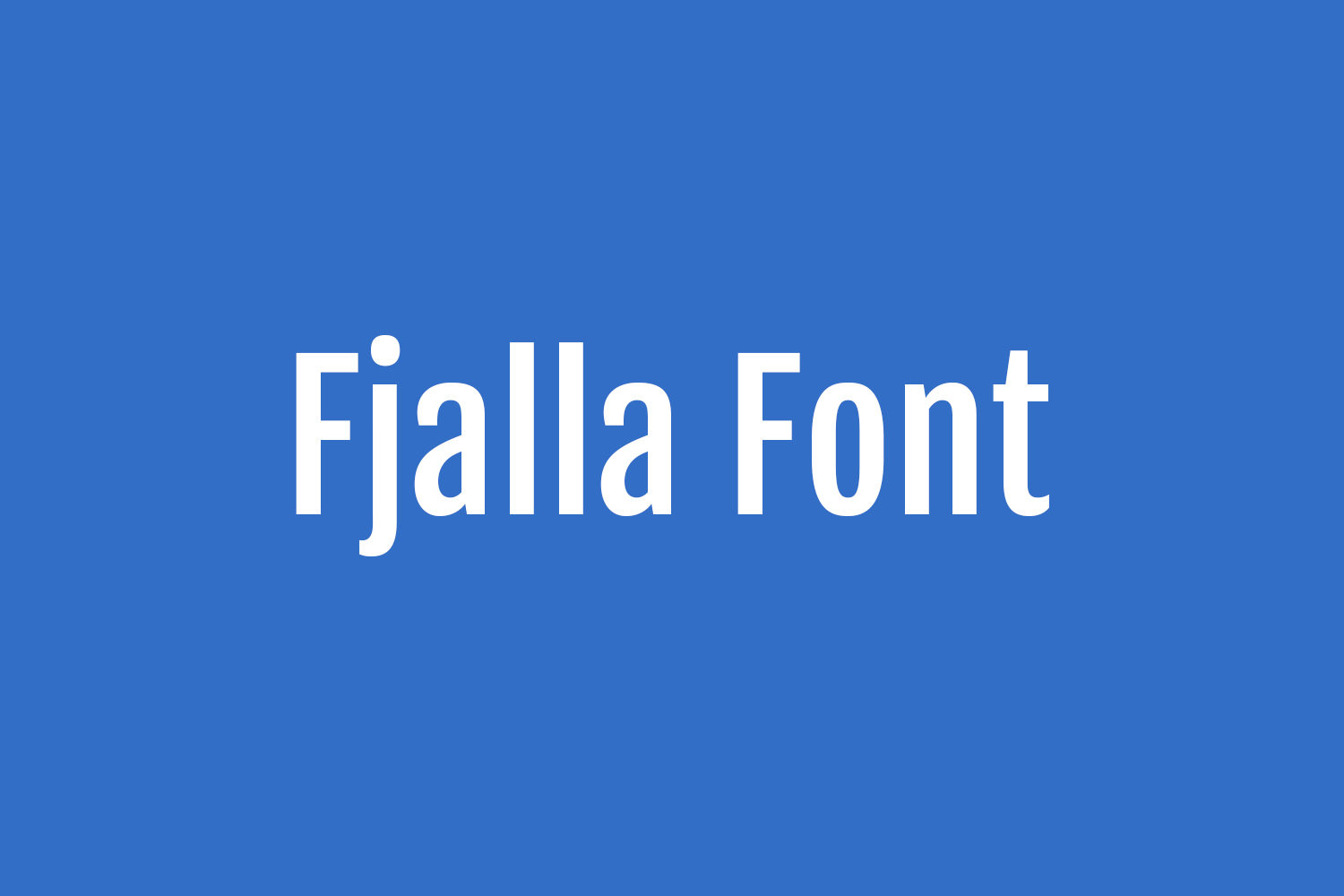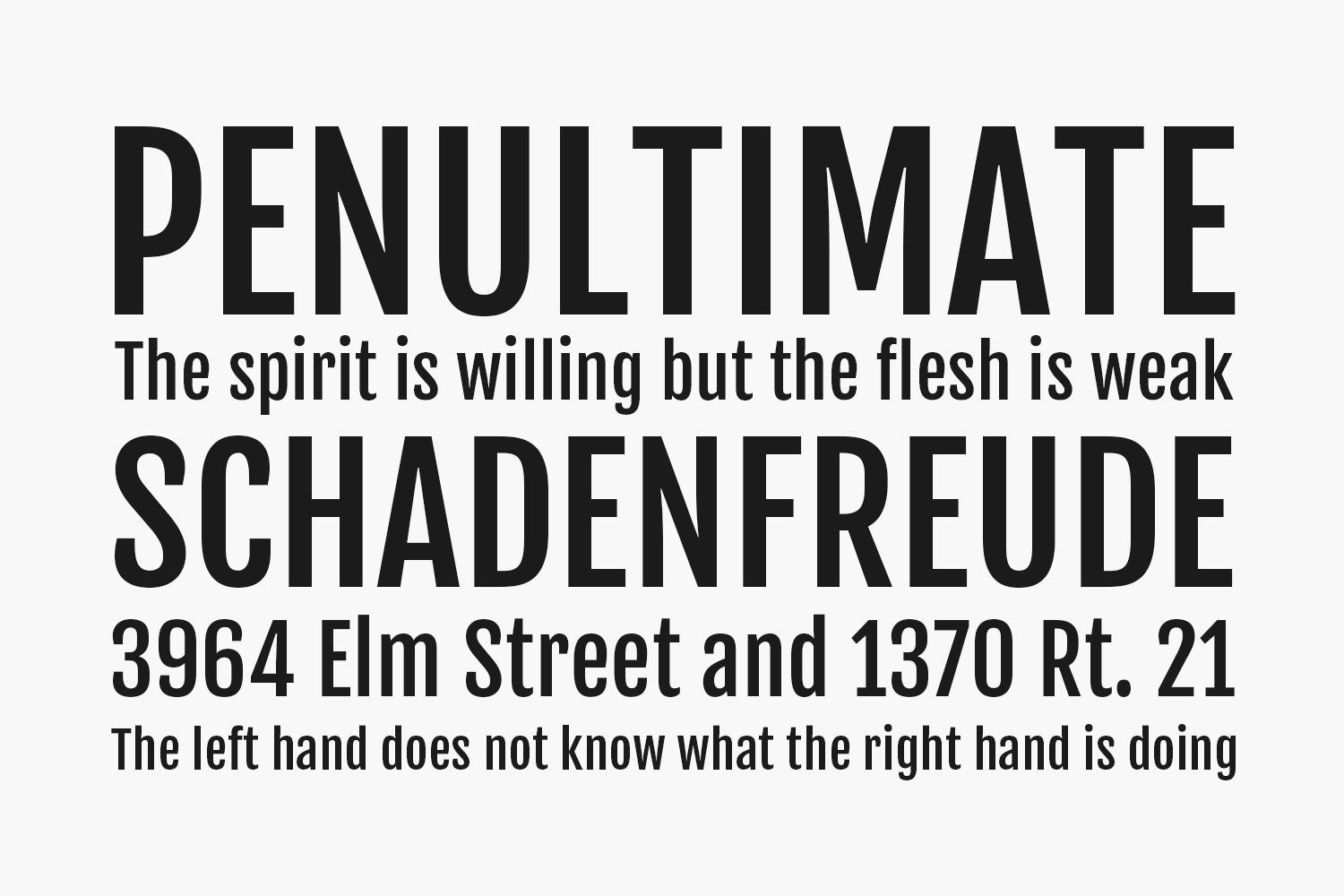
Fjalla Free Font is a medium contrast display sans serif. Fjalla One has been carefully adjusted to the restrictions of the screen. Despite having display characteristics Fjalla One can be used in a wide range of sizes. This font is free for both personal and commercial purposes.
Designed by Sorkin Type Co